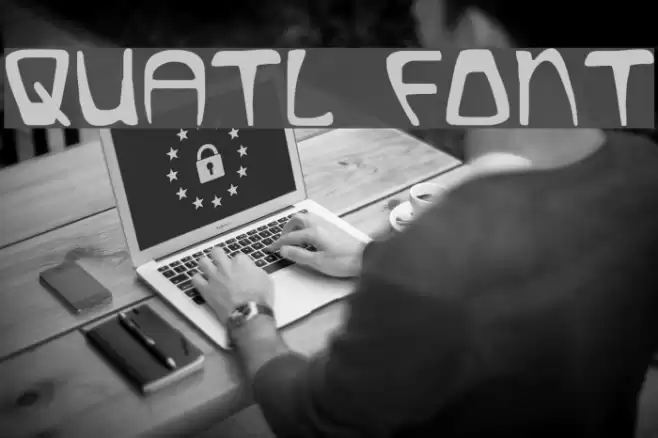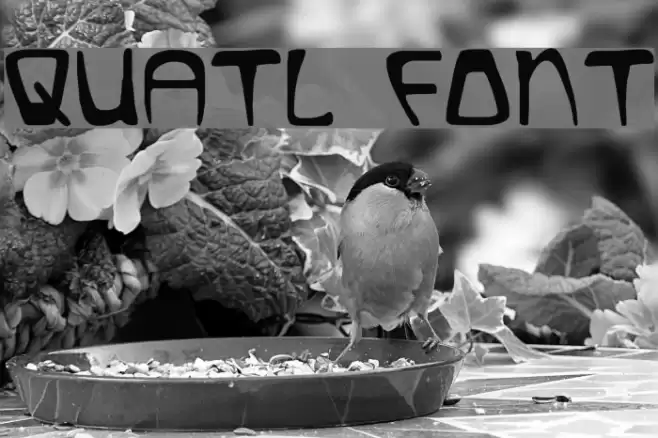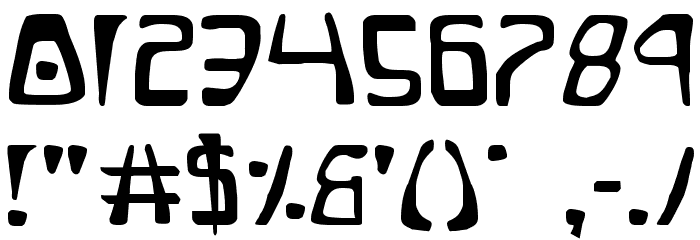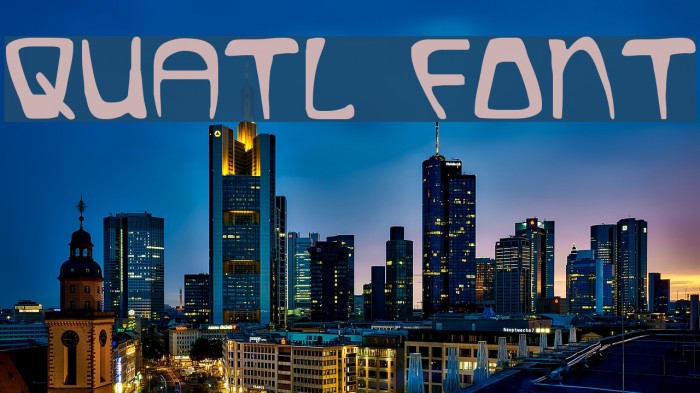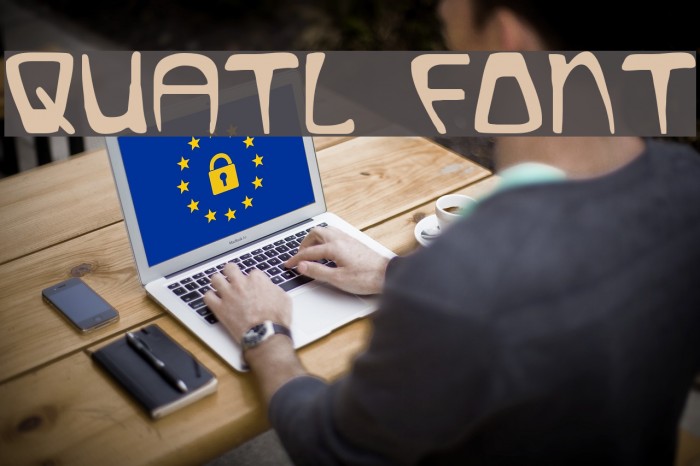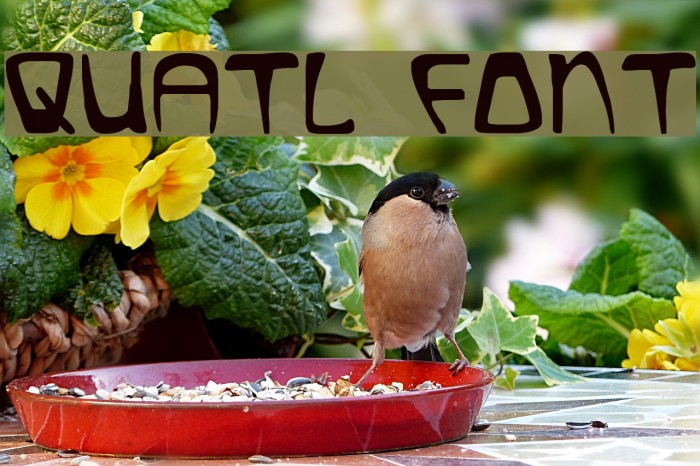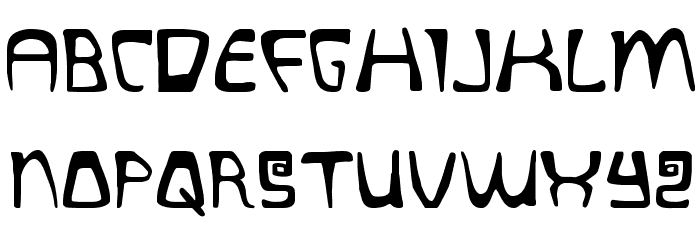
Quatl Font
Quatl Description
This font features a unique, artistic style with a playful and slightly tribal aesthetic. The characters are bold and have a hand-drawn appearance, with varying stroke thickness that adds a dynamic feel. The uppercase and lowercase letters maintain a consistent style, with some characters incorporating spiral or angular elements that enhance its decorative nature. The numbers and special characters follow the same artistic theme, making the font suitable for creative and unconventional designs.
A bold, artistic font with a playful, tribal aesthetic from Crazy fonts.